Great typography doesn’t always come with a price tag. Sometimes, the perfect font for your next project is completely free you just need to know where to look.
Whether you’re designing a logo, creating social media content, building a personal brand, or simply exploring new typography styles, having a collection of high-quality free fonts can make your creative process much easier.
As a type designer, I believe free fonts are more than promotional products. They’re an opportunity to experiment with different visual personalities before committing to a larger type family. In this article, I’ve curated 11 free Letterhend fonts, each offering a unique style that can inspire your next creative project.
Rather than choosing a font based only on whether it’s serif or script, try asking a different question:
“What feeling do I want people to experience when they see my design?”
Some fonts feel playful.
Some feel elegant.
Others instantly evoke nostalgia, handcrafted charm, or modern simplicity.
Here are some of my favorite free Letterhend fonts, grouped by the emotions they naturally communicate.
Kumiko captures the feeling of authentic handwriting with relaxed strokes and natural movement. It works beautifully for projects that need warmth without looking overly formal.
Perfect for
Happy Sparkle delivers cheerful energy with expressive handwritten characters that instantly brighten a layout.
Ideal for:
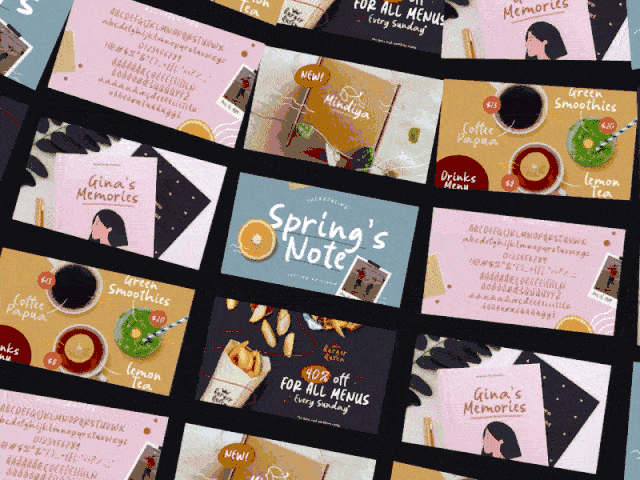
Light, casual, and effortless.
Spring’s Note feels like handwritten notes collected throughout a peaceful afternoon, making it suitable for soft branding and personal projects.
Recommended for:
Golden Story combines vintage serif and script styles into a timeless duo inspired by old signage and classic branding.
Best used for:
Palacio features confident brush lettering with bold curves that naturally attract attention.
Excellent for:
Inspired by Mediterranean aesthetics, Cephalonia balances classic elegance with relaxed sophistication.
Works beautifully for:
Full of personality and movement, Wednesdom is designed to create fun, energetic headlines.
Perfect for:
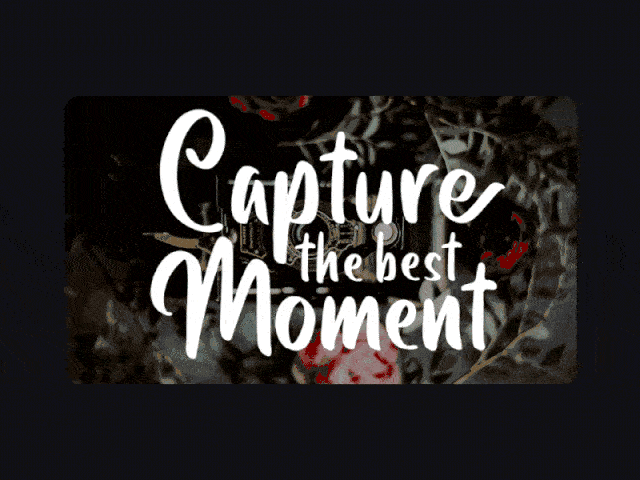
Rounded shapes and friendly proportions make Buttoni approachable and memorable.
Great for:
Monday Bay combines casual lettering with modern simplicity, creating typography that feels both fresh and approachable.
Recommended for:
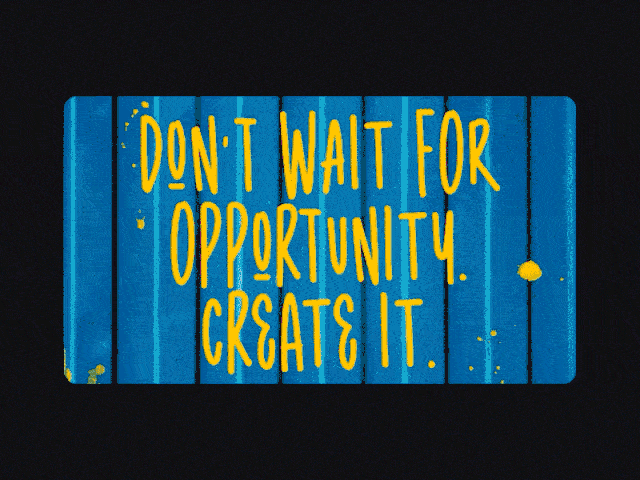
Radgrows delivers strong visual impact with expressive letterforms that work exceptionally well in large display sizes.
Ideal for:
Elegant yet expressive, Storytella adds personality without sacrificing readability.
Suitable for:
Many designers think free fonts are simply stripped-down versions of premium typefaces.
In my experience, that’s not always true.
A well-crafted free font can become the starting point of countless creative ideas. It allows designers to explore visual directions, test branding concepts, and understand typography before investing in a larger font collection.
Instead of asking:
“Is this font free?”
consider asking:
“Does this font communicate the story I want people to remember?”
That’s often the more important question.
Collecting hundreds of fonts doesn’t necessarily improve your design work.
Choose fonts that genuinely match your design style.
Even beautiful fonts lose their impact when combined without hierarchy.
Limit yourself to two or three complementary typefaces within one project.
The best free font isn’t the one with the most decorative details it’s the one that helps your message feel authentic, memorable, and easy to understand.
Free fonts are one of the easiest ways to explore new creative directions without increasing your design budget. Whether you’re building a playful brand, crafting vintage packaging, or designing elegant editorial layouts, the right typeface can completely transform how people perceive your work.
The eleven free Letterhend fonts featured here each bring a unique personality from expressive handwritten scripts to bold vintage displays giving you plenty of options to match different creative styles and branding needs.